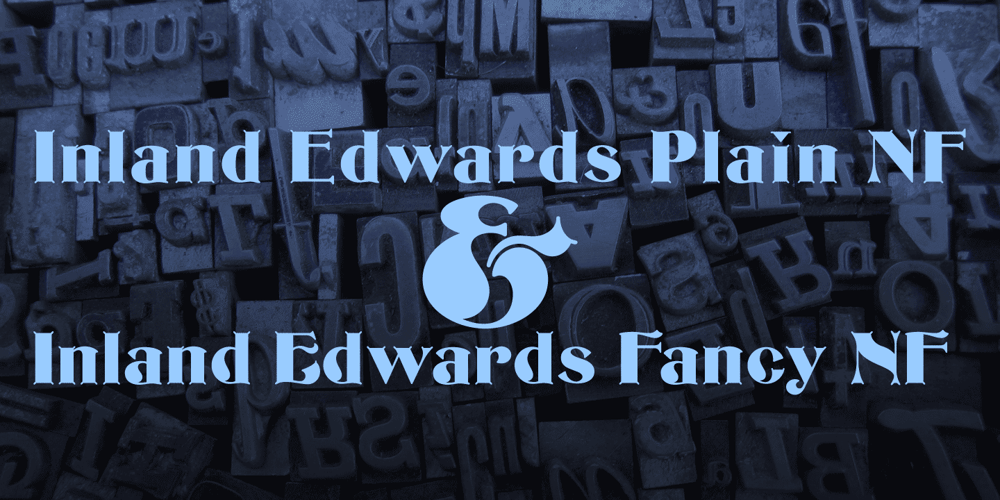
Inland Edwards NF
Inland Edwards NF Font Family was designed by Nick Curtis and published by Nick’s Fonts. Inland Edwards NF contains 2 styles and family package options. Variations on a theme by Nicholas J. Werner for St. Louis’ Inland Type Foundry provided the pattern for this happy family, released in 1895 and 1899. Both flavors of this font feature the 1252 Latin, 1250 Central European, 1254 Turkish and 1257 Baltic character sets.